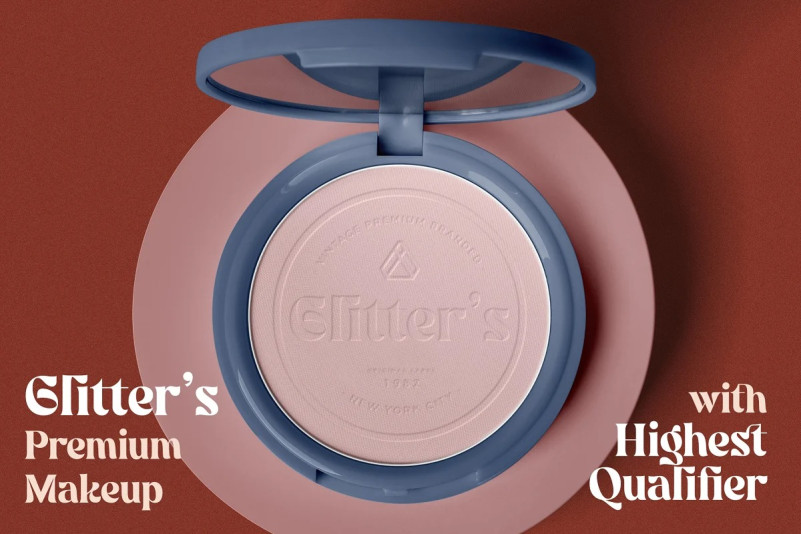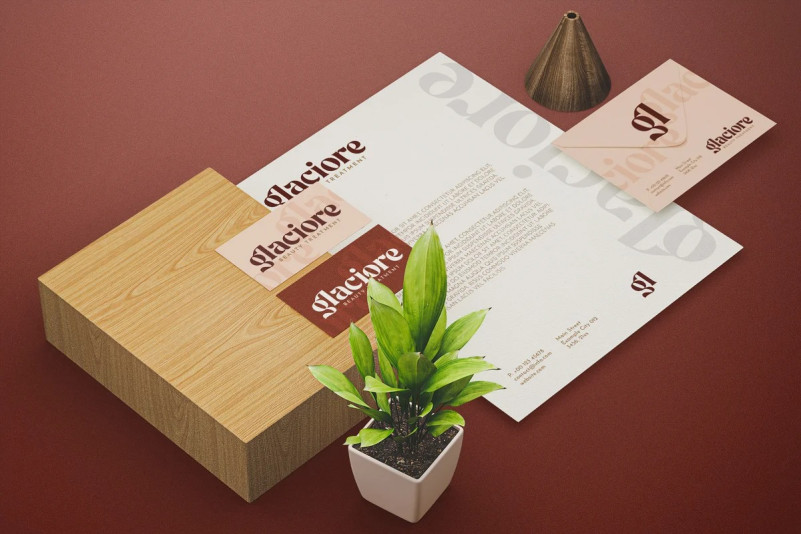
Sableklish Font
Sableklish Font – Unique Serif Display Font is an elegant and unique font that uses ligatures to smoothly link letters. Perfect for adding a unique twist to word-mark logos. Sableklish has ligatures & Alternate as well making it super fantastic. Ligature can be turned off if required standard writing needs.